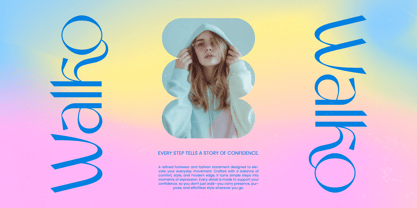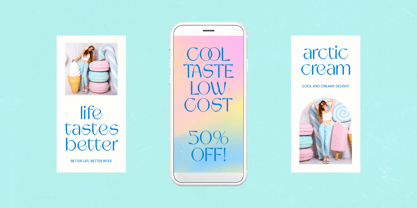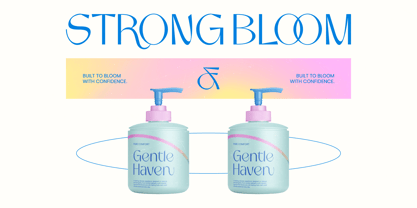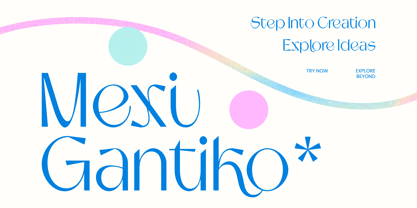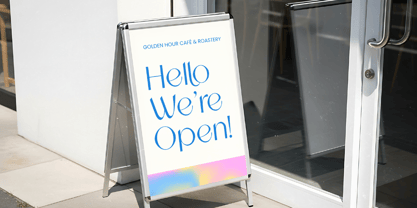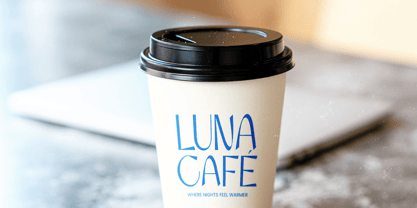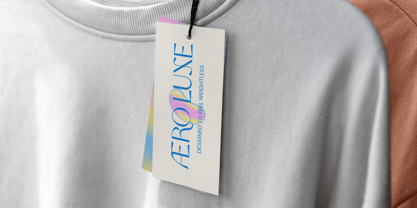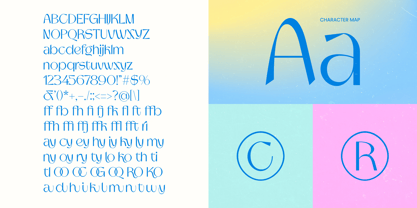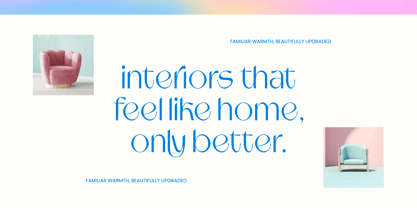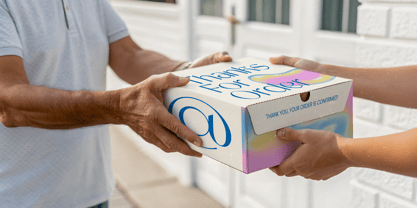
Mexi Gantiko
by Timelesstype Studio
The Mexi Gantiko Font Family was designed by Heru Utama Putra and published by Timelesstype Studio. Mexi Gantiko contains 2 styles and family package options. More about this family
Elevate your design projects with a touch of modern sophistication and refined grace. Mexi Gantiko - Thin Sans Serif is a masterpiece of contemporary typography, blending minimalist elegance with artistic flair. Its high-contrast strokes and delicate silhouettes create a captivating visual rhythm that is both striking and legible. This font is designed specifically for creators who demand a sophisticated aesthetic without compromising on modern clarity and professional poise.